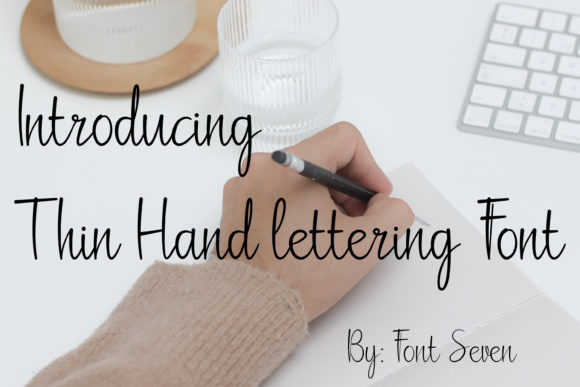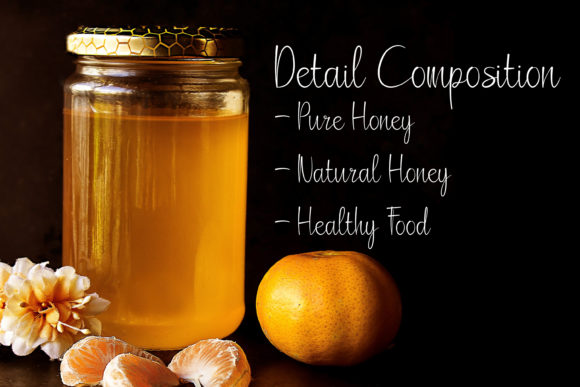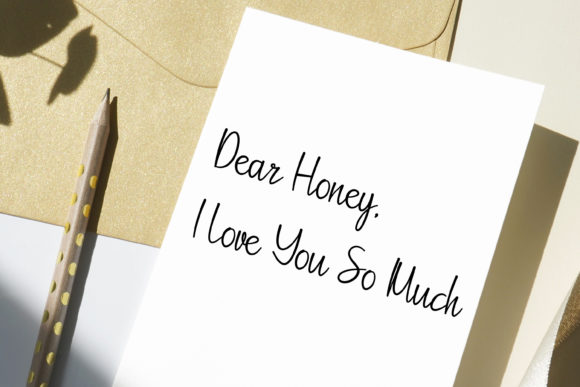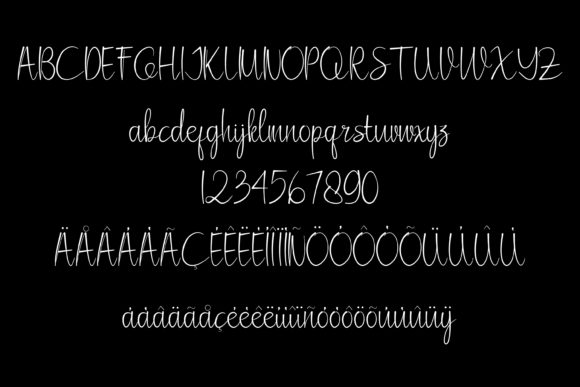
Thin Hand-lettering Script Font
About Thin Hand-lettering Script Font
Thin Hand-lettering Script is a well-balanced and delicate handwritten font. Dainty and joyful, this font will be ideal for writing wedding invitations, cards or any other design that may need a romantic, personalized touch!